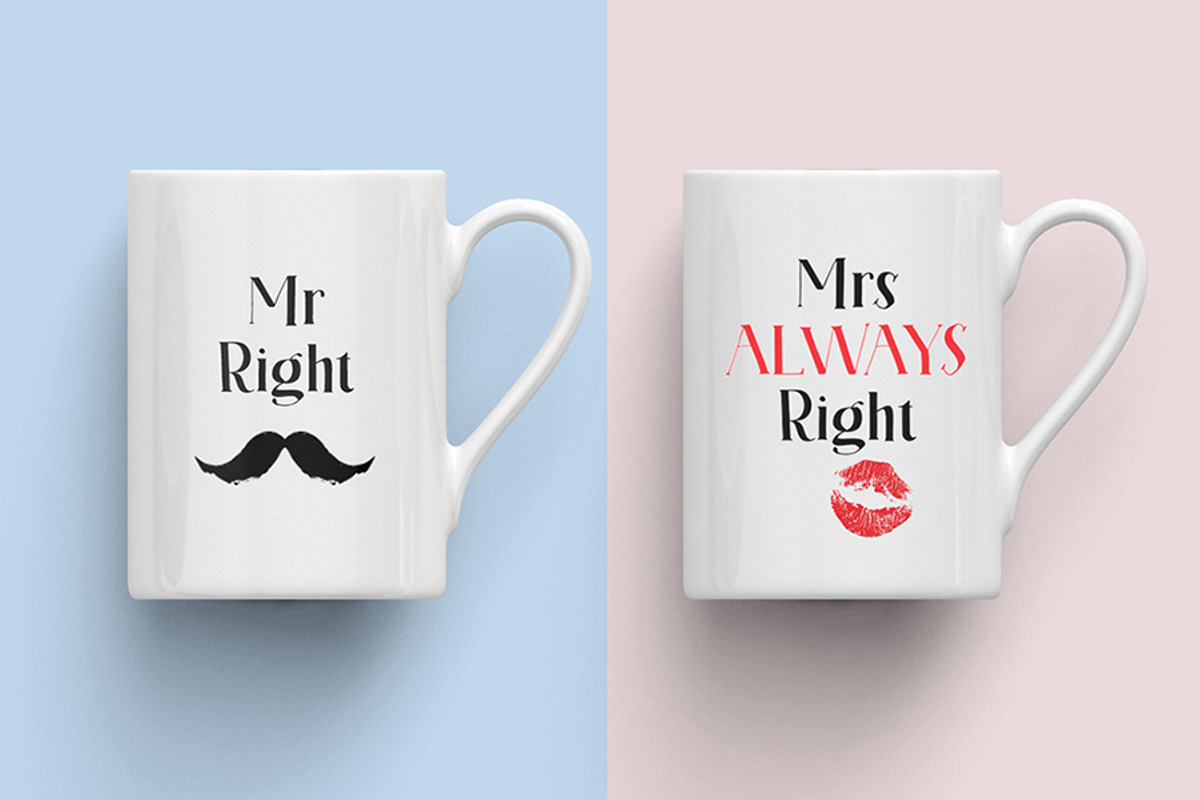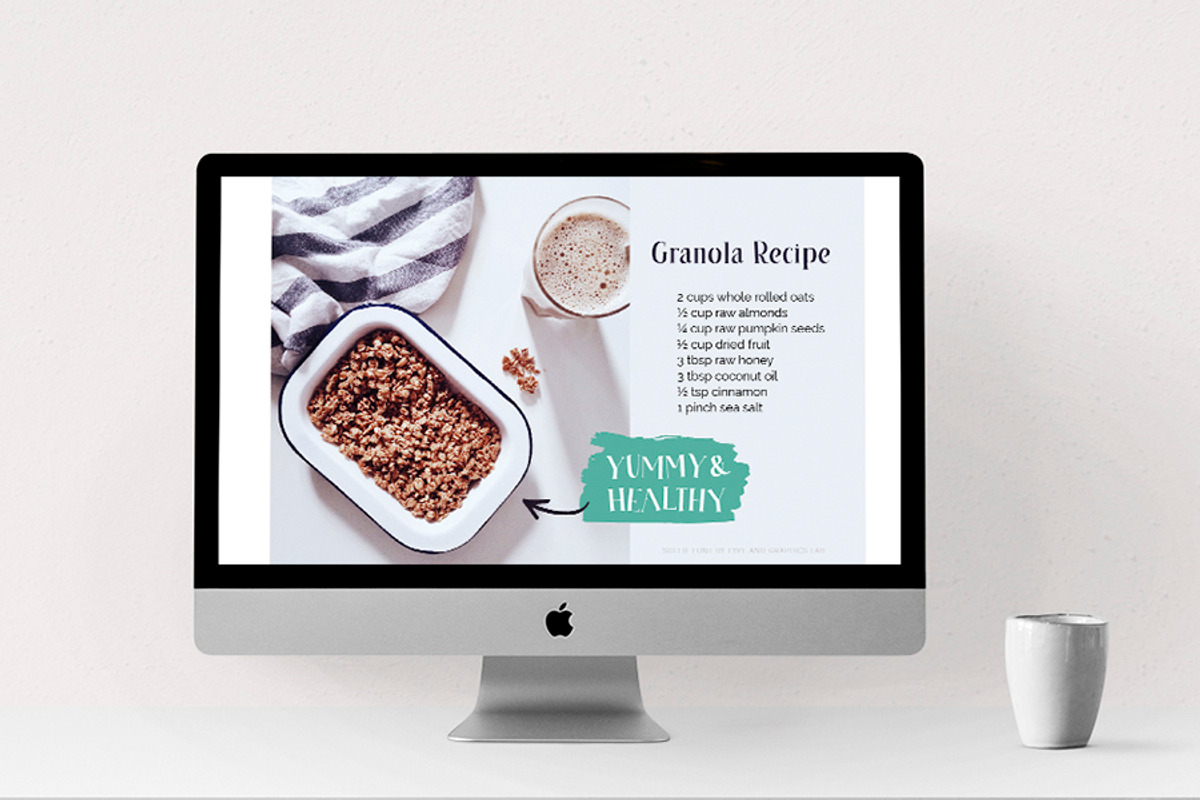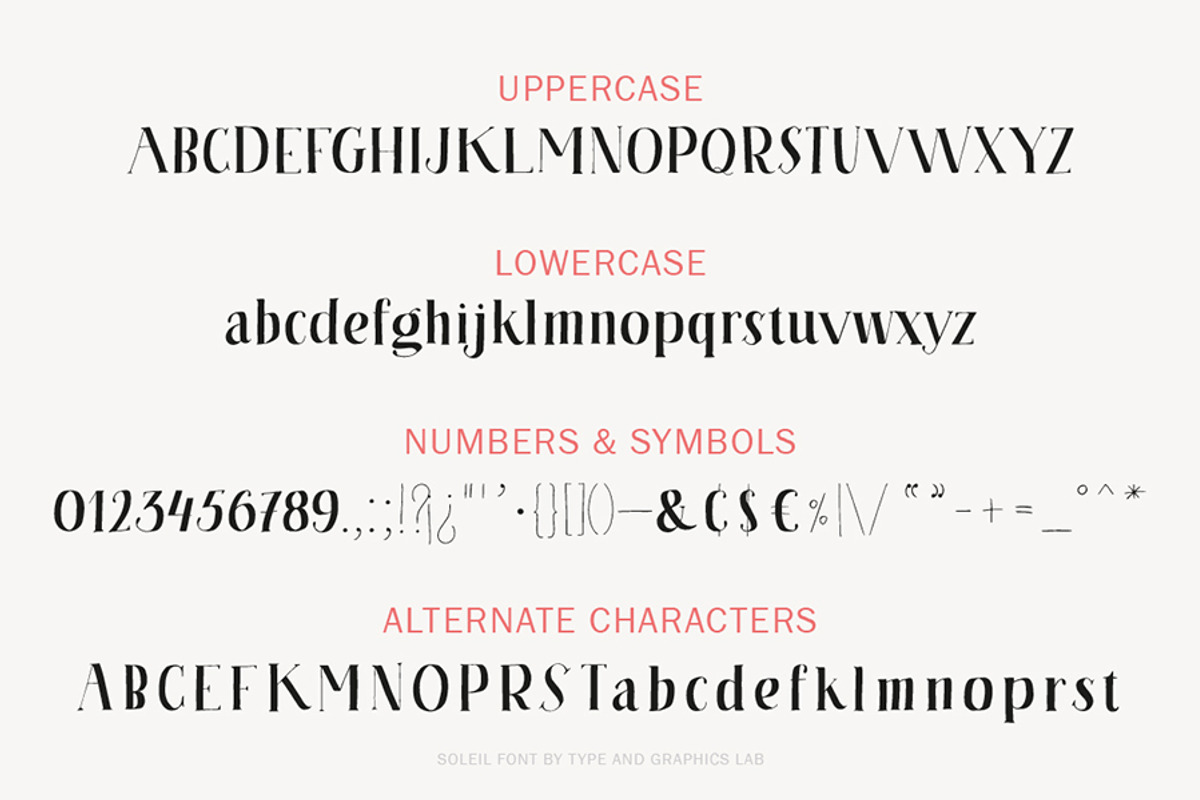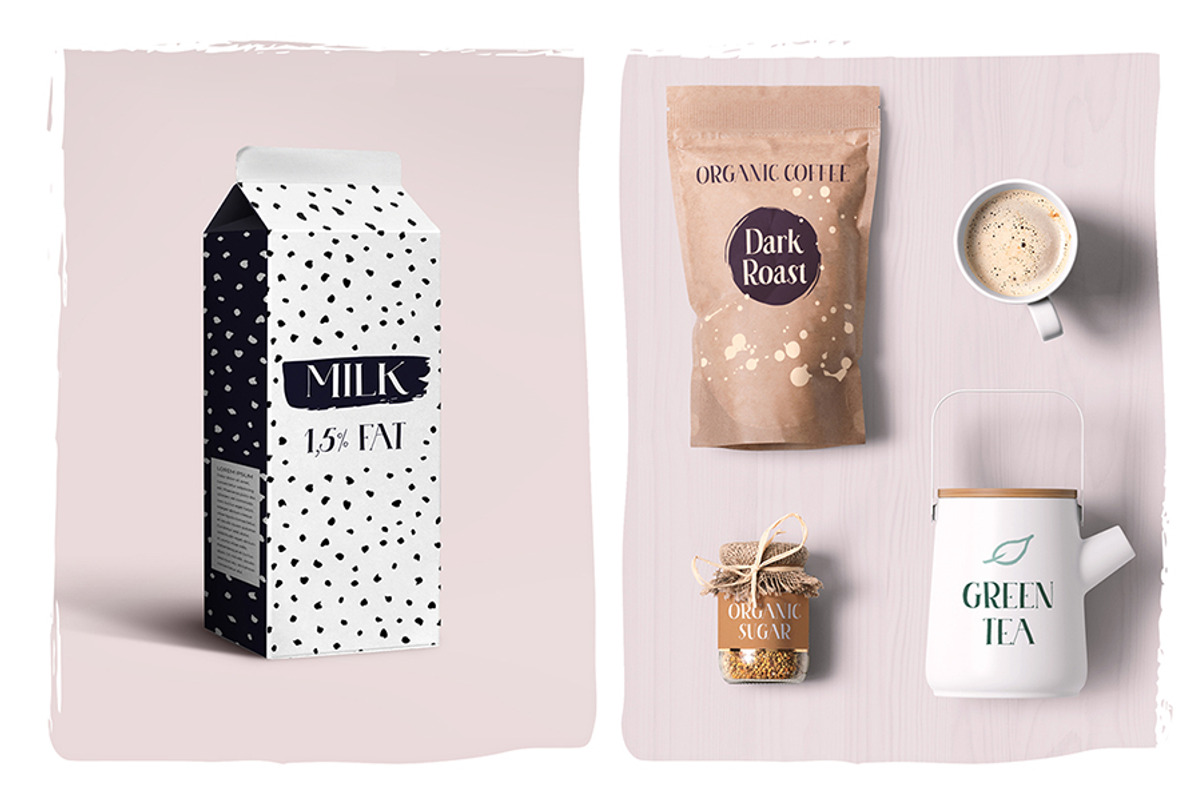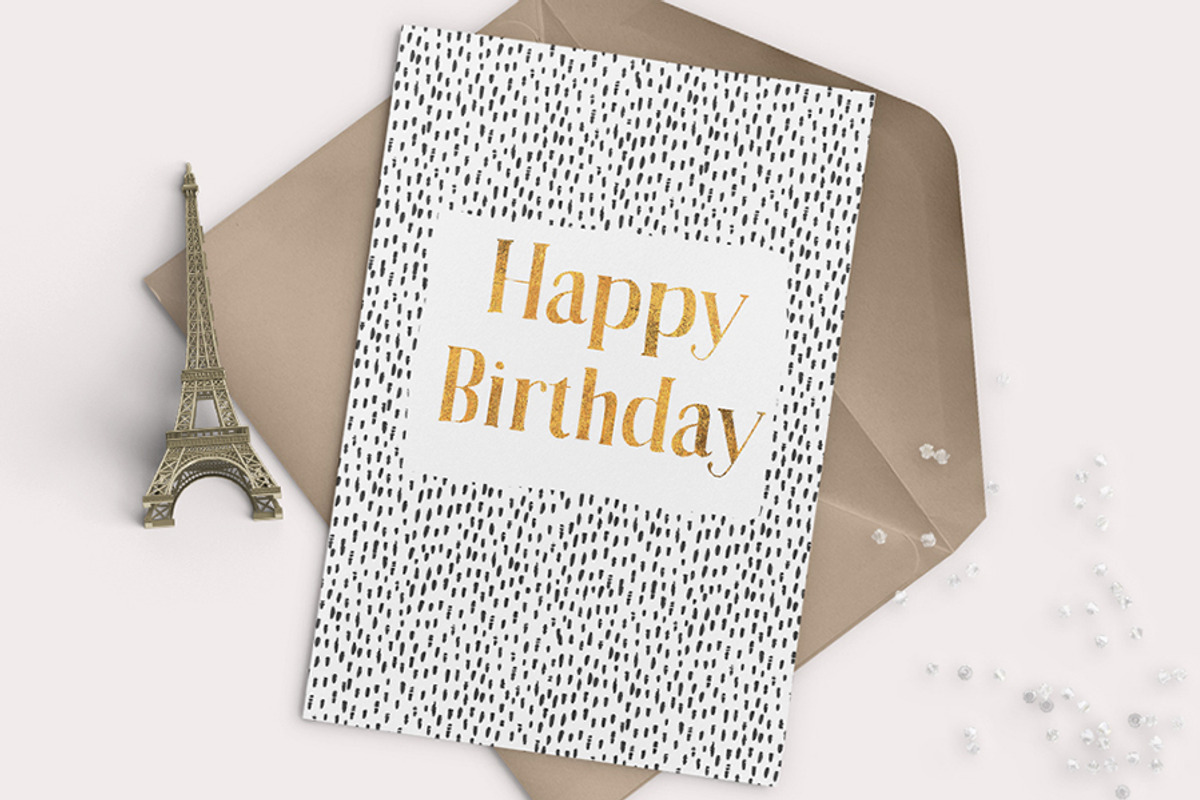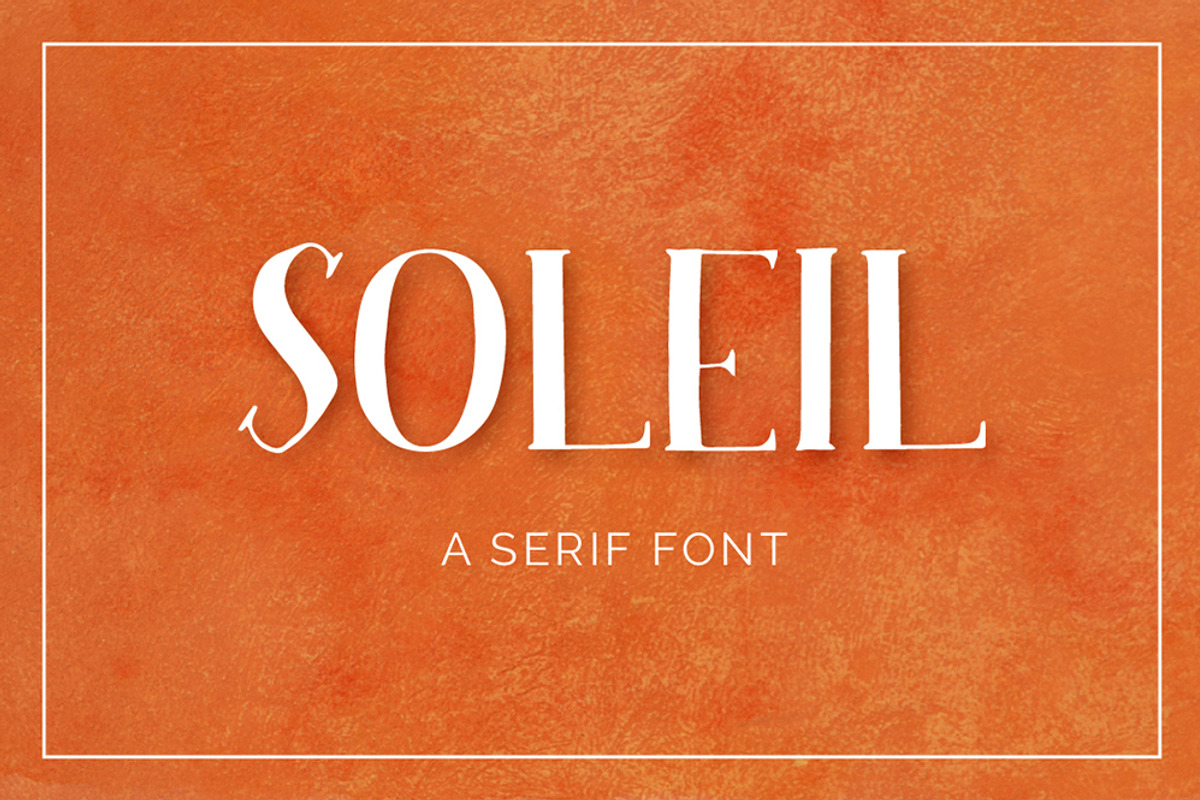
Soleil Font
Soleil Font by Type and Graphics Studio is a font selected for branding, posters, packaging, typography.
- Soleil comes with capital and lowercase characters, punctuation, numerals, and symbols.
- It supports most European languages (all international characters are represented on a preview).
Why Soleil Font is worth a look
Soleil Font by Type and Graphics Studio fits naturally into Branding, posters, packaging, typography.